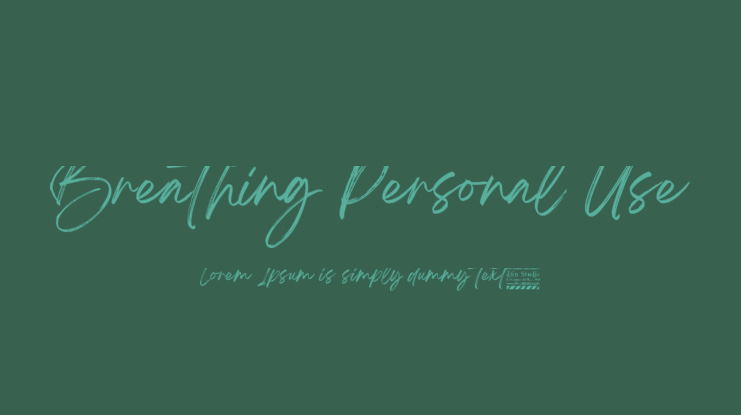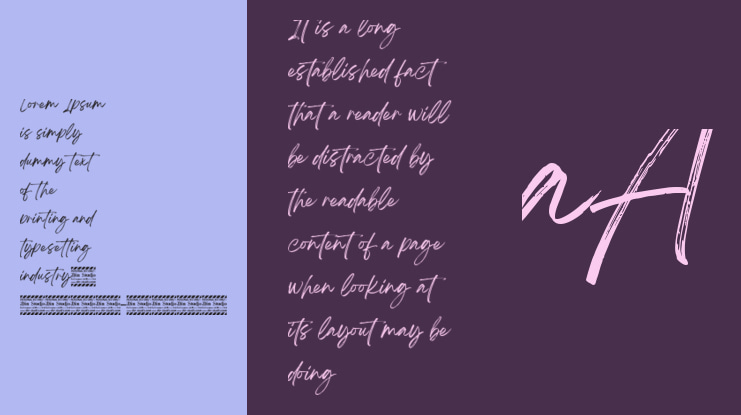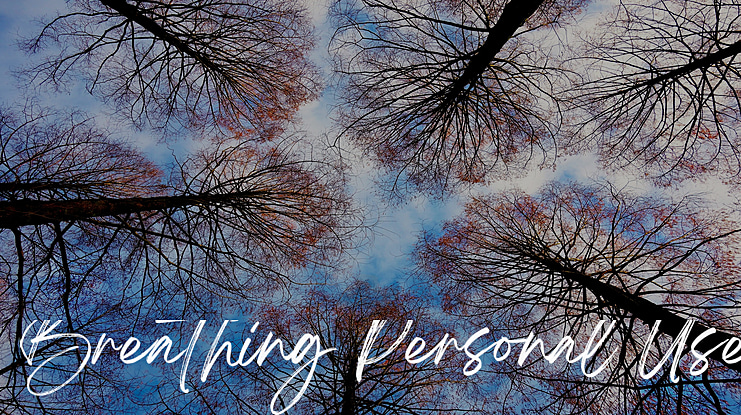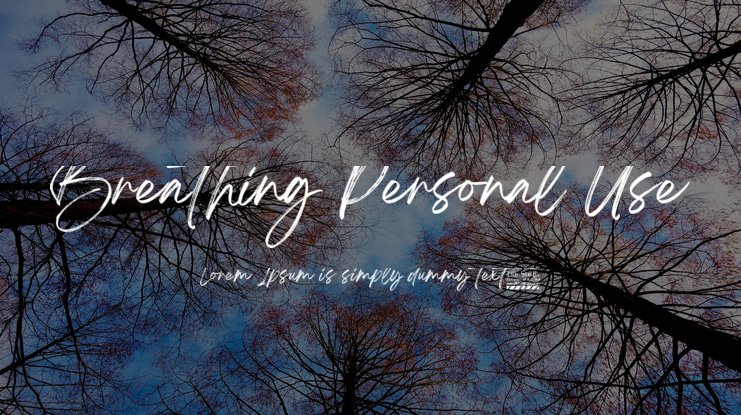
Breathing Personal Use Font
Breathing is a beautiful brush signature font. Made for any professional project branding. Every letter has a unique and beautiful touch. Made from our talented.
•52 Stylistic set
•37 Ligatures
•Multilingual Support
•PUA encoded